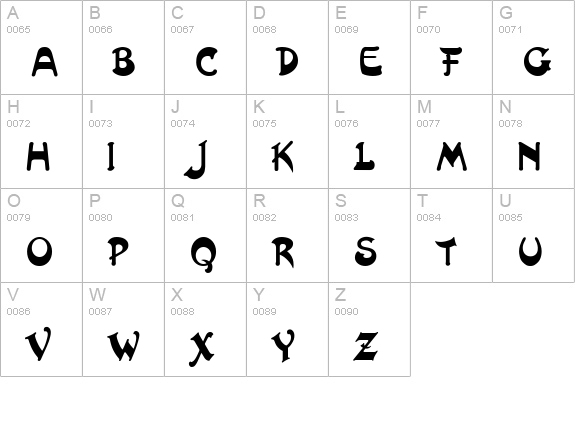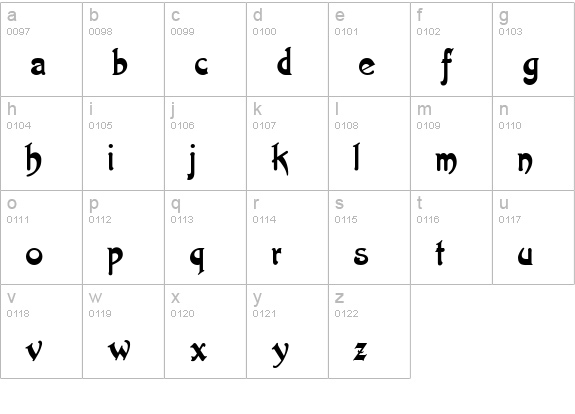
CgArtistik Font Details
CgArtistik is a stylish and modern font that exudes creativity and elegance. With its unique blend of sharp lines and smooth curves, this font is perfect for adding a touch of sophistication to any design project. Whether you're creating a logo, branding materials, or a website, CgArtistik will make your text stand out with its distinctive flair. And the best part? CgArtistik is available for free download at FontsMarket.com. This means you can elevate your designs without breaking the bank. Don't miss out on the opportunity to add this beautiful font to your collection today!